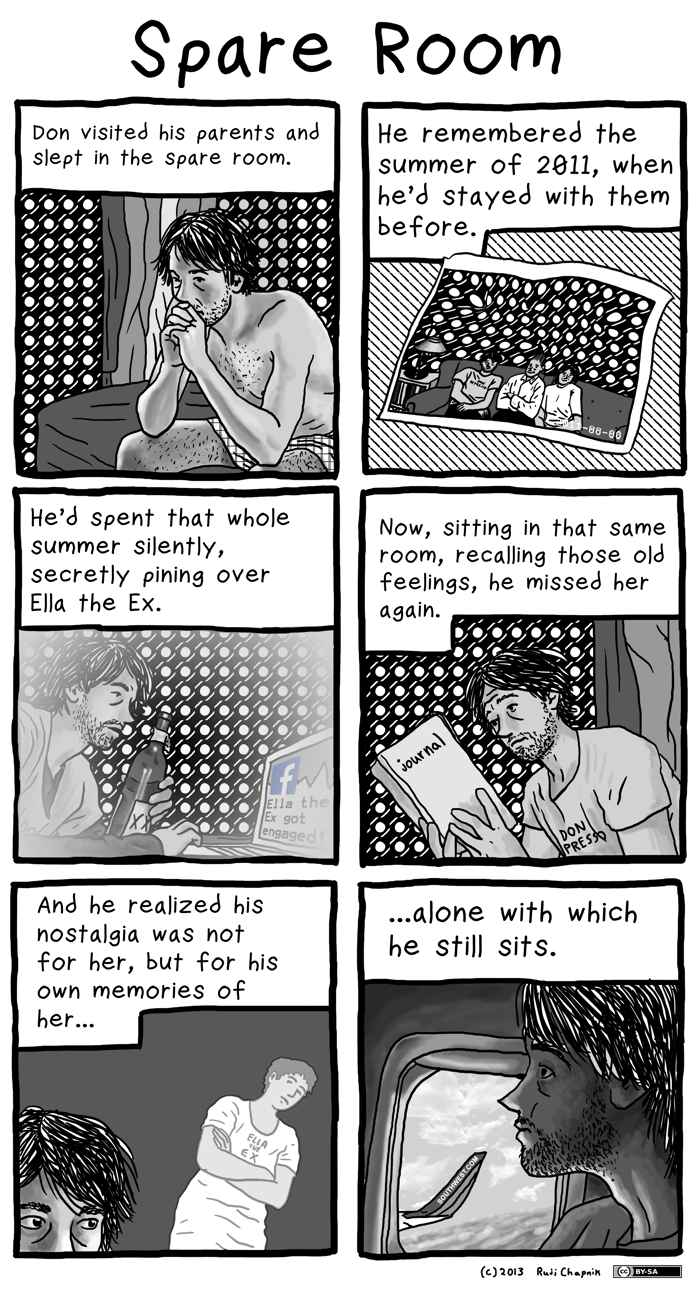
Ruji's Handwriting Font v.2.0
Ruji's Handwriting Font by Ruji Chapnik (http://rujic.net) has been used in the Don Depresso webcomic (http://dondepresso.rujic.net) and printed books (http://rujic.net/u/books).
This version of Ruji's Handwriting Font has more glyphs and improved readability compared to the previous version.